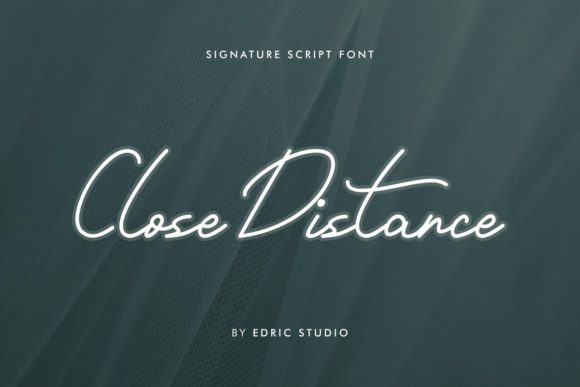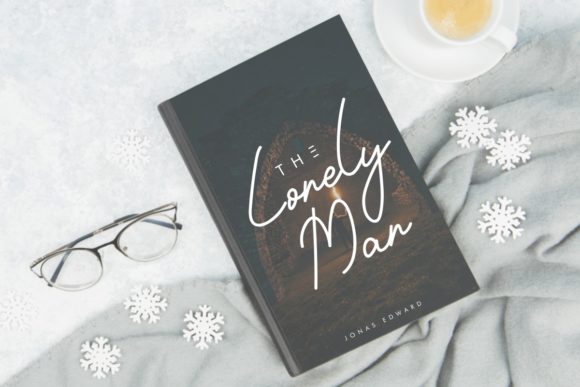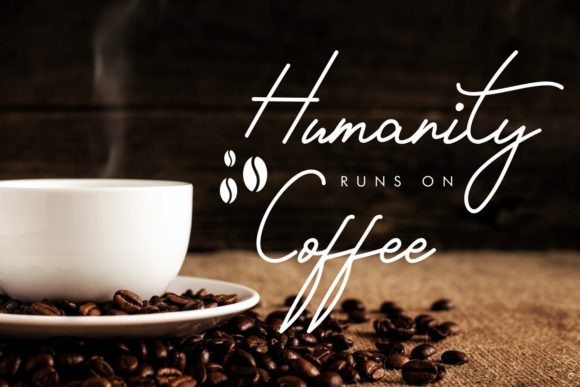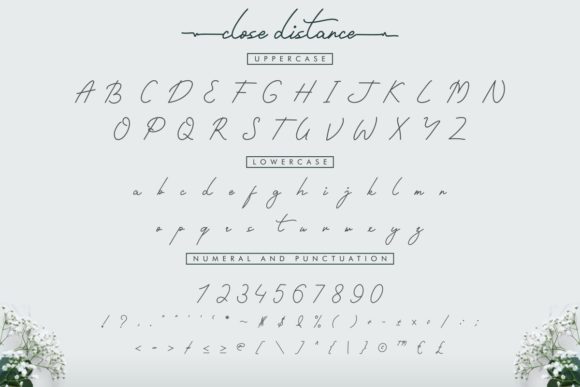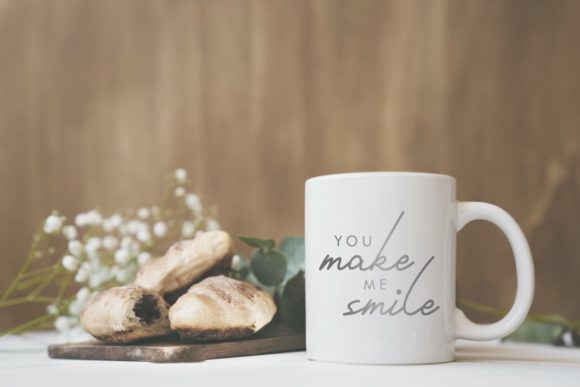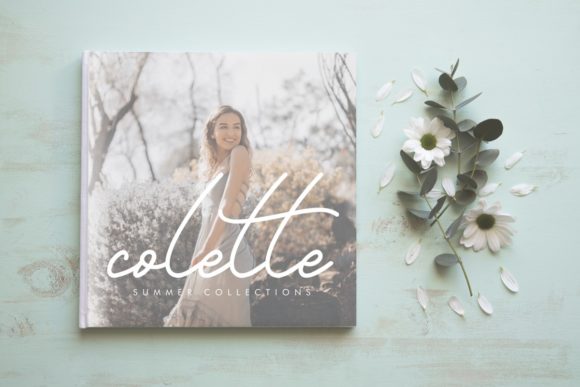
Introduction to Close Distance Font
Close Distance is an elegant and flowing handwritten font.
Add this font to your creative ideas and notice how it will make them stand out This font is PUA encoded which means you can access all of the glyphs and swashes with ease.
Key Features of Close Distance Font